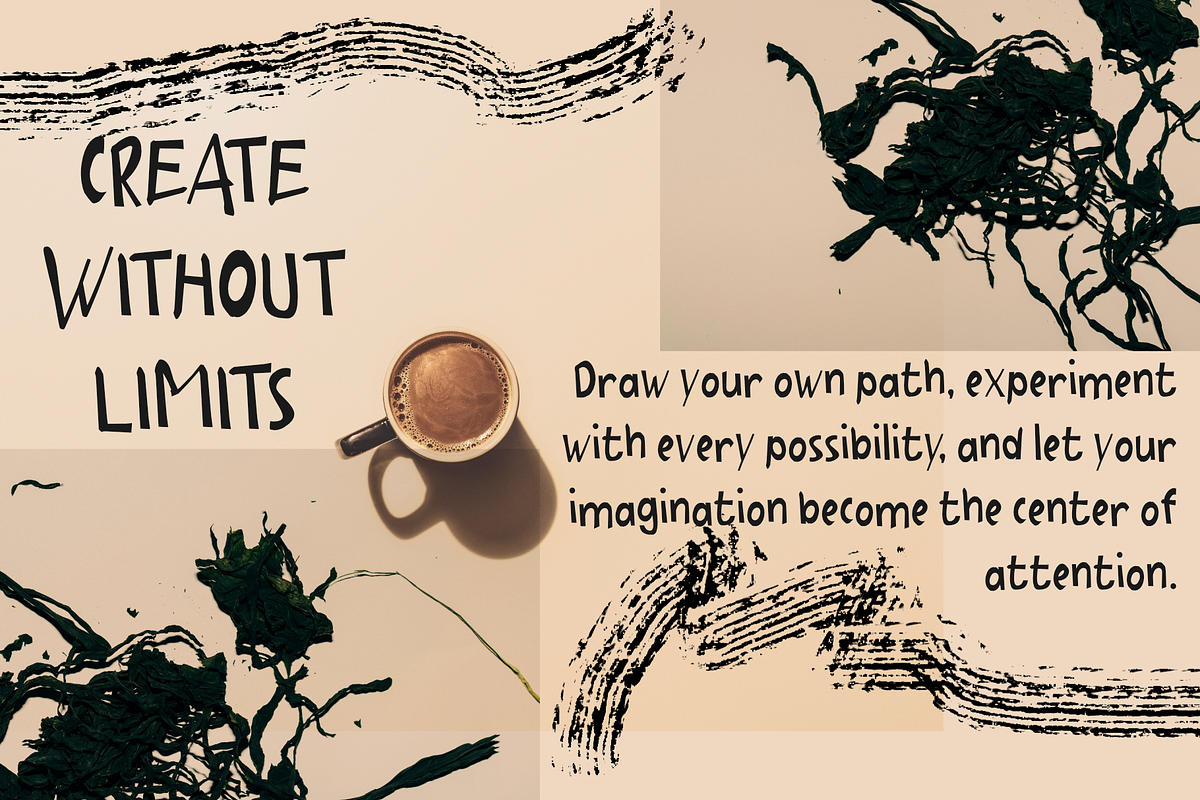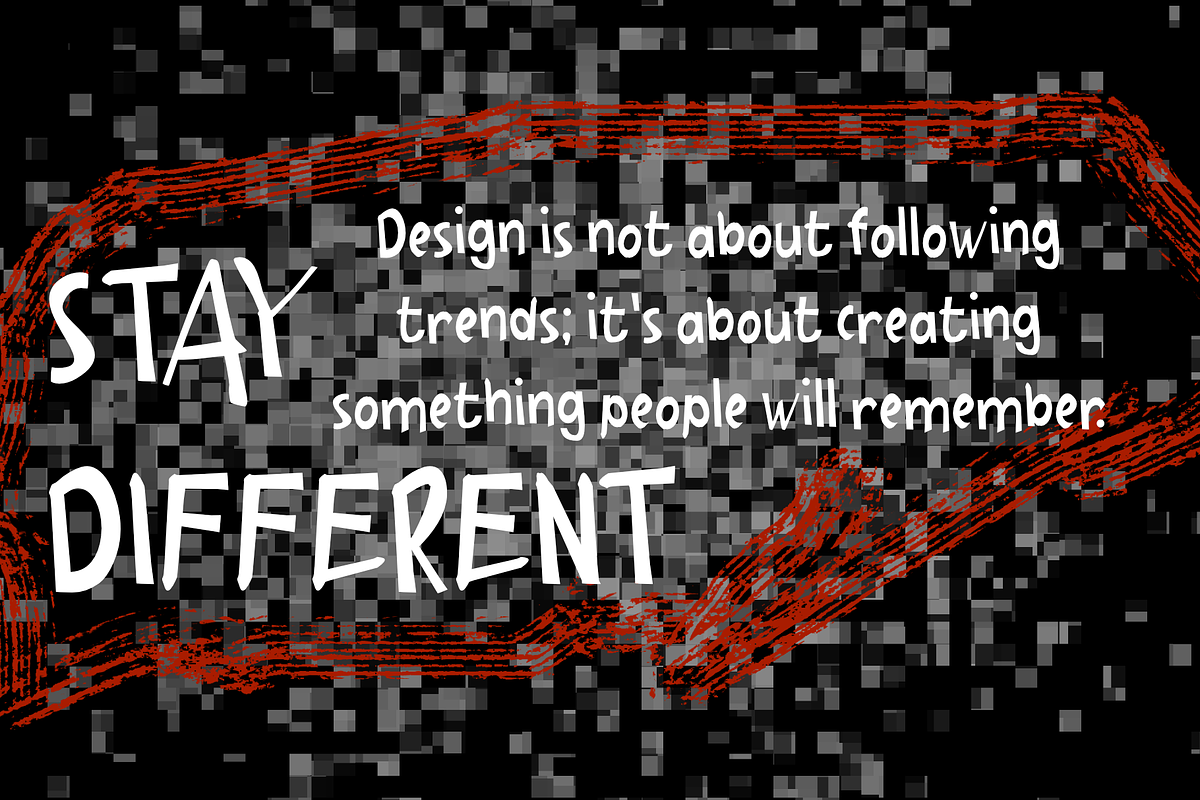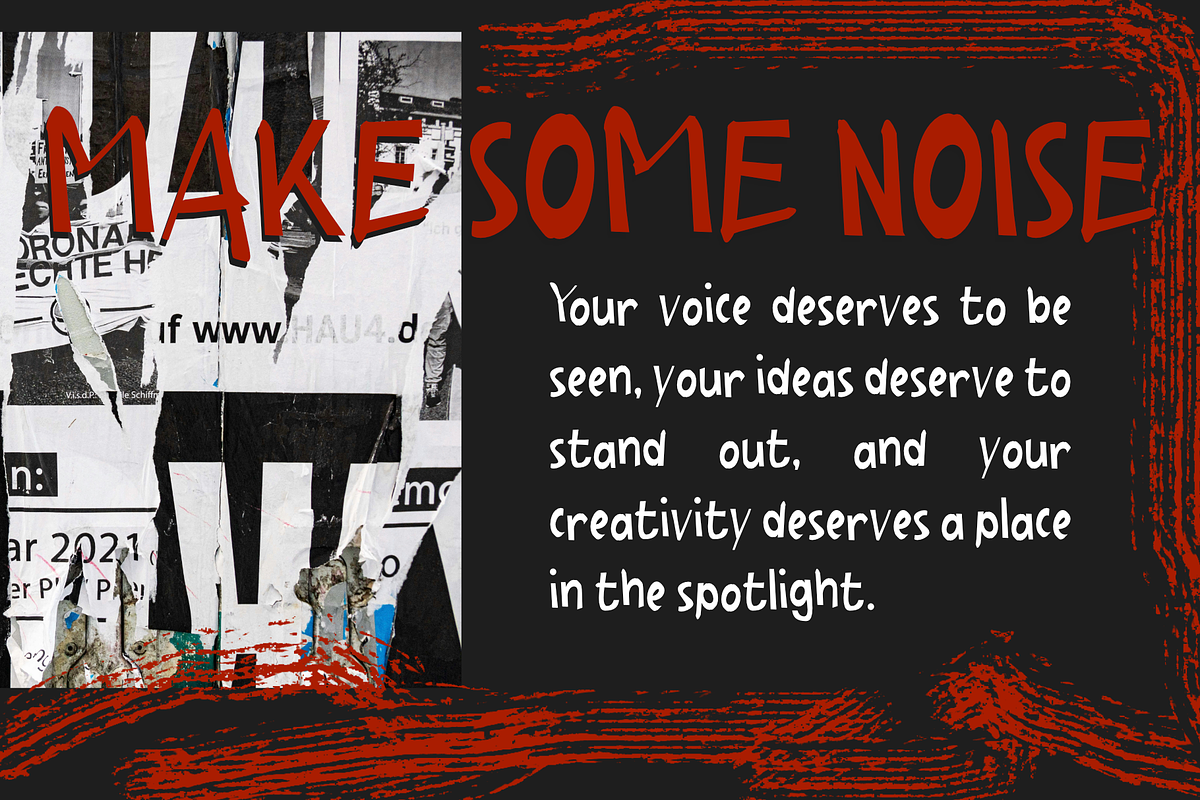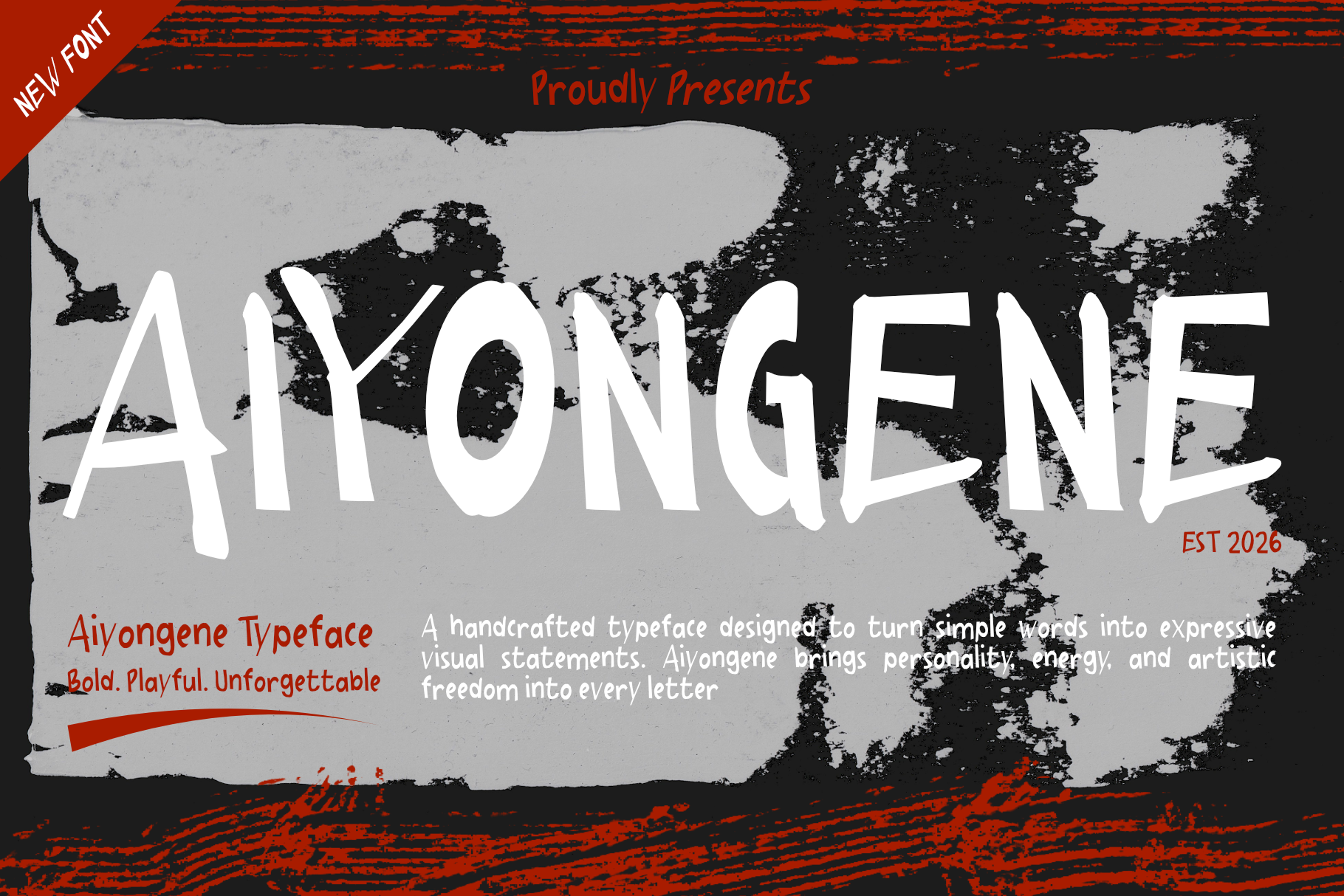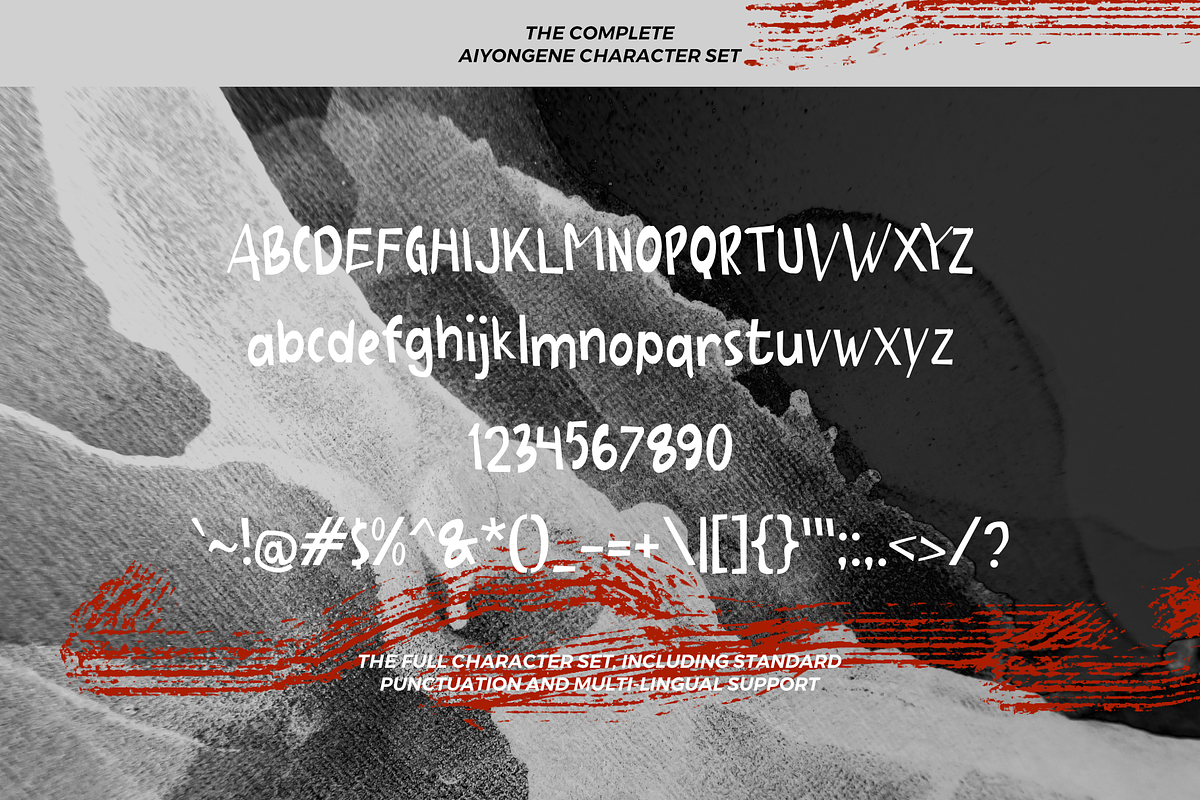
Aiyongene Playful Handwritten Font
Aiyongene is a playful handwritten display font with a bold, artistic, and expressive personality. Inspired by organic hand-drawn lettering, this typeface is designed to make your projects stand out with a unique and authentic look.
Its irregular shapes and handcrafted details create a natural and energetic appearance, making it perfect for eye-catching headlines, creative branding, posters, packaging, album covers, social media graphics, and modern editorial designs.
Aiyongene combines a fun and contemporary style while maintaining excellent readability. Whether you're creating a brand identity, designing merchandise, or producing artistic content, this font will add charm, creativity, and a memorable touch to every project.
• Posters
• Branding & Logo Design
• Packaging Design
• Social Media Content
• Album Covers
• Book Covers
• T-Shirt Design
• Merchandise
• Children's Products
• Editorial Layouts
• Creative Advertisements
• Handmade Projects
Bring a bold, playful, and handcrafted personality into your designs with Aiyongene.